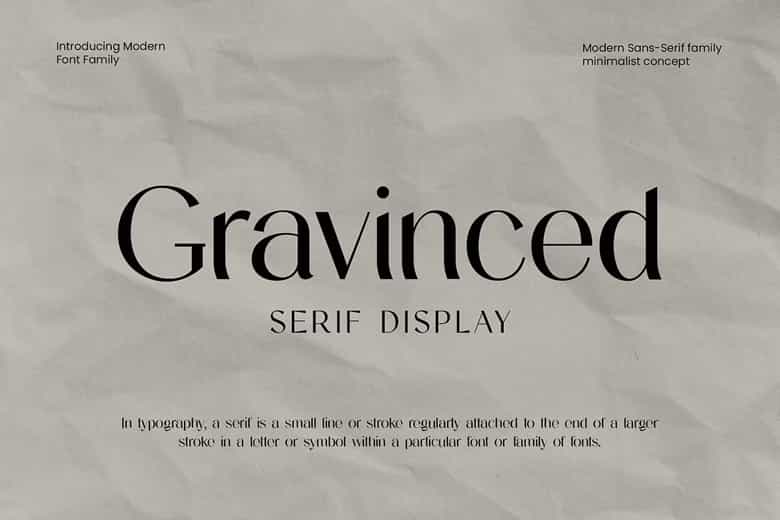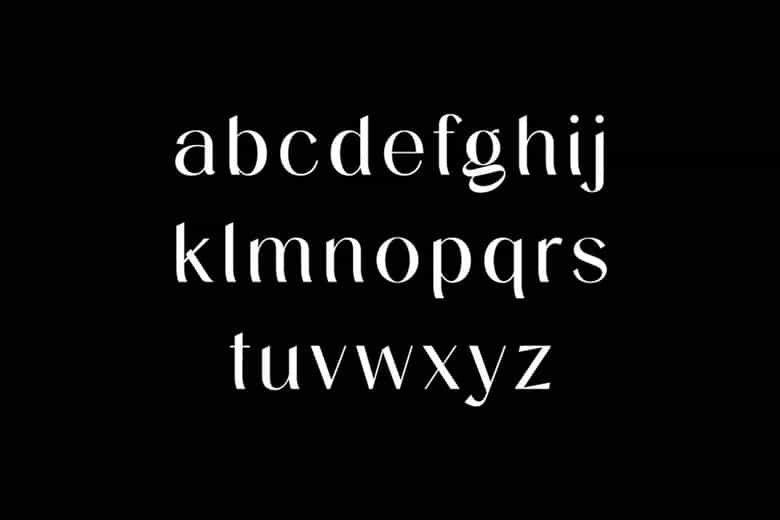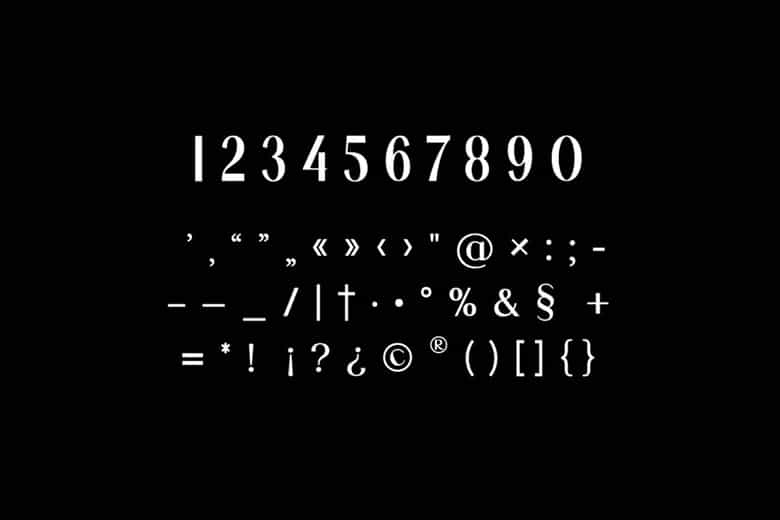
Gravinced is a modern minimalist sans display font. The modern display font it self looks elegant classy and stylish. This font is perfect for all kinds of projects including but not limited to stationery, logo design, branding for wedding services, typography quotes, magazine or book cover design,